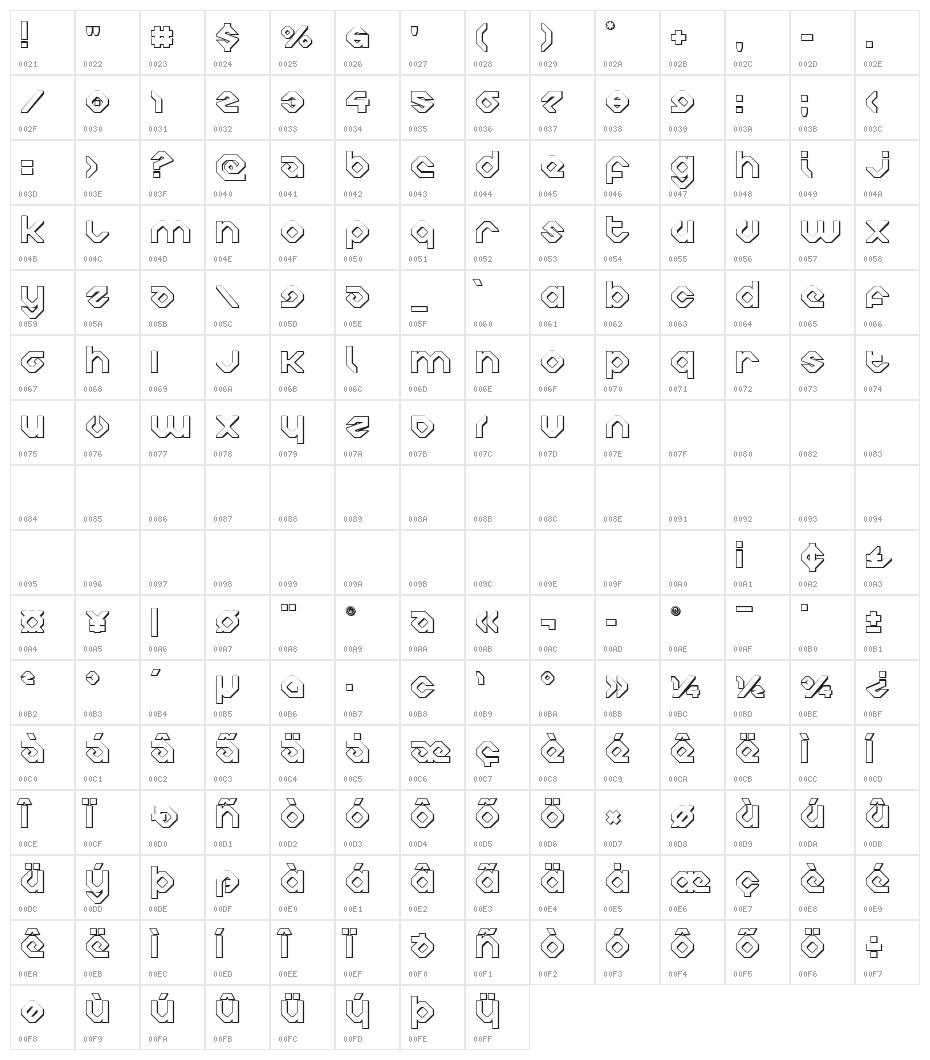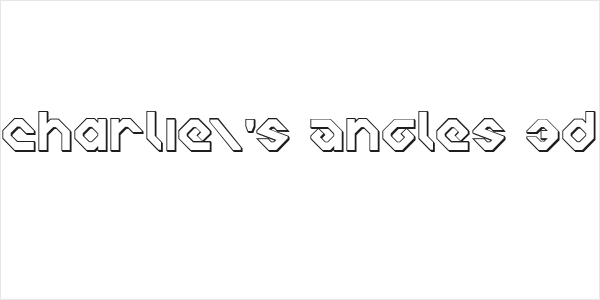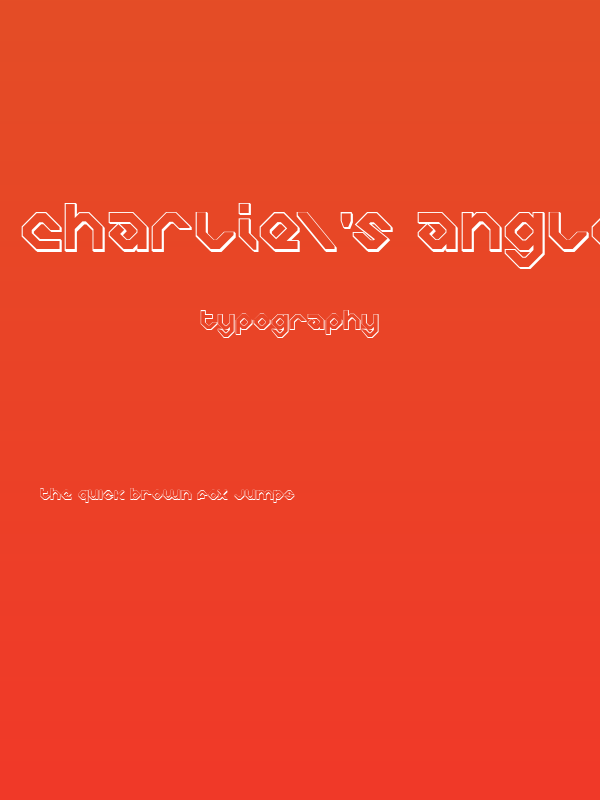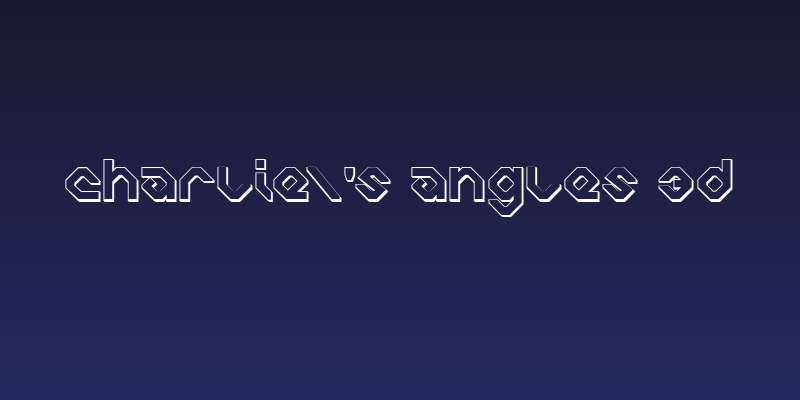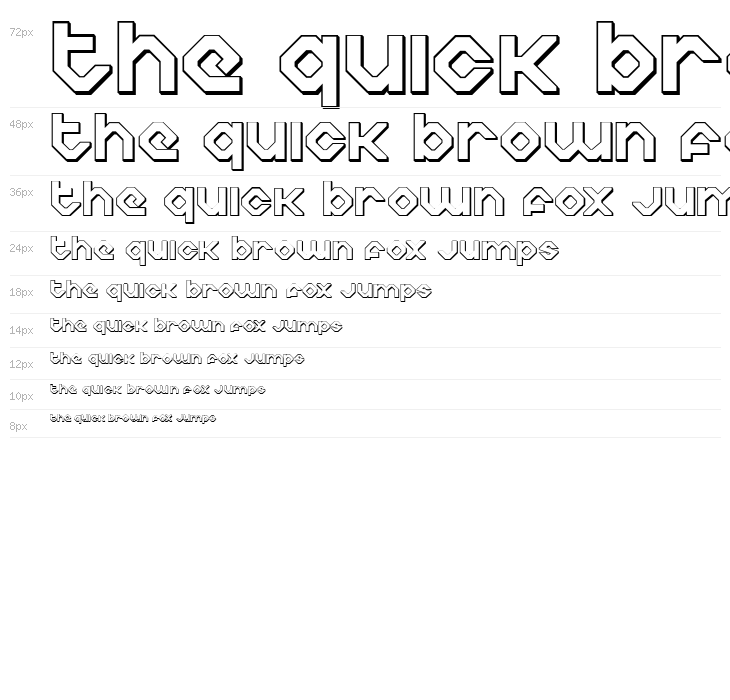
Charlie's Angles 3D Font
Charlie's Angles 3D Description
This font features a bold, geometric design with a 3D effect that gives it a striking and modern appearance. The characters are outlined with a shadow that creates a sense of depth, making them stand out prominently. The angular and blocky style of the letters is consistent throughout the alphabet, numbers, and special characters, providing a cohesive look. This font is particularly eye-catching and is well-suited for projects that require a futuristic or tech-inspired aesthetic. The uniformity in the design ensures readability while maintaining a unique and artistic flair.
| Proposed Projects | Ideal for video game titles, tech logos, futuristic posters, and digital media projects. |